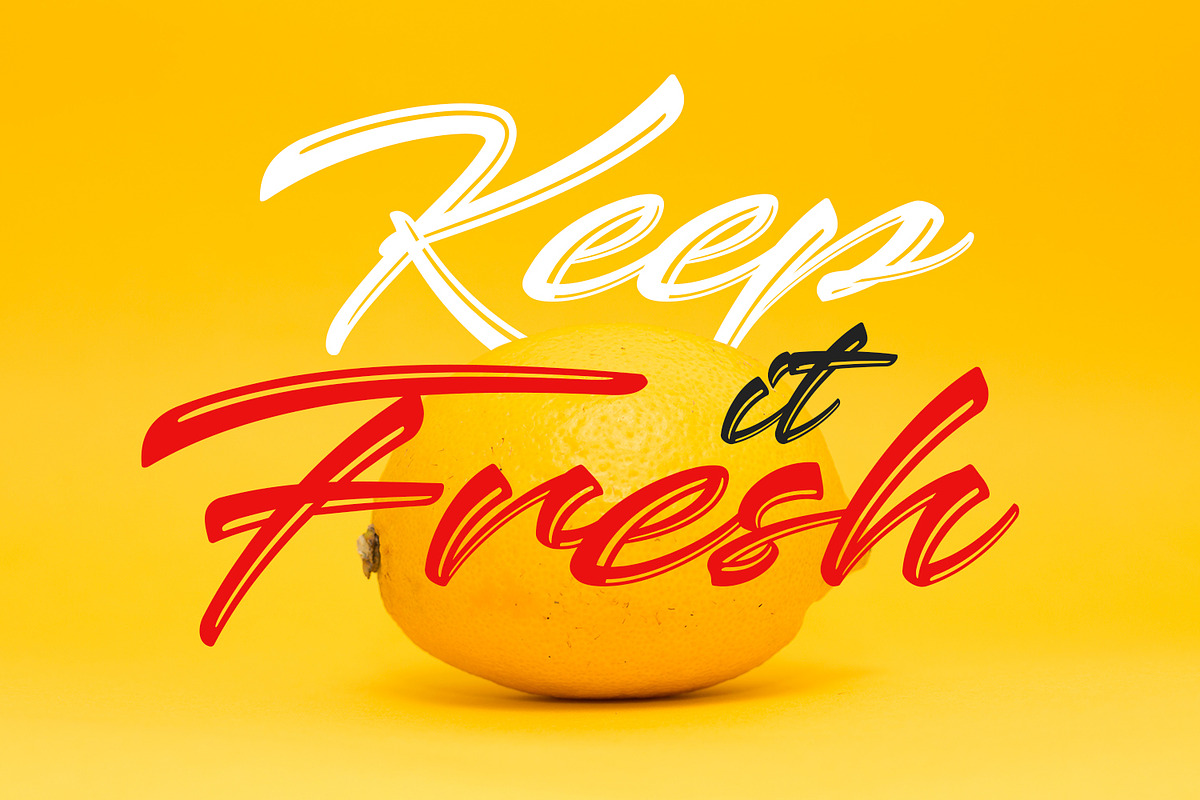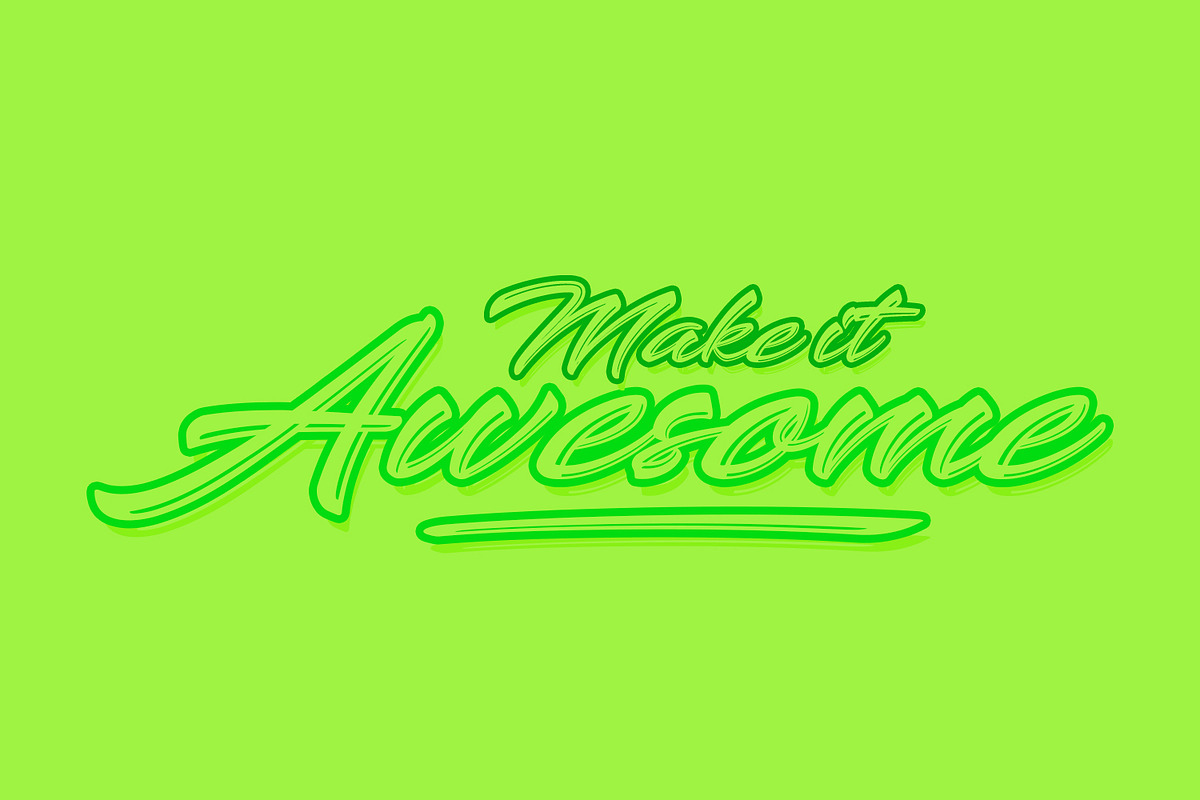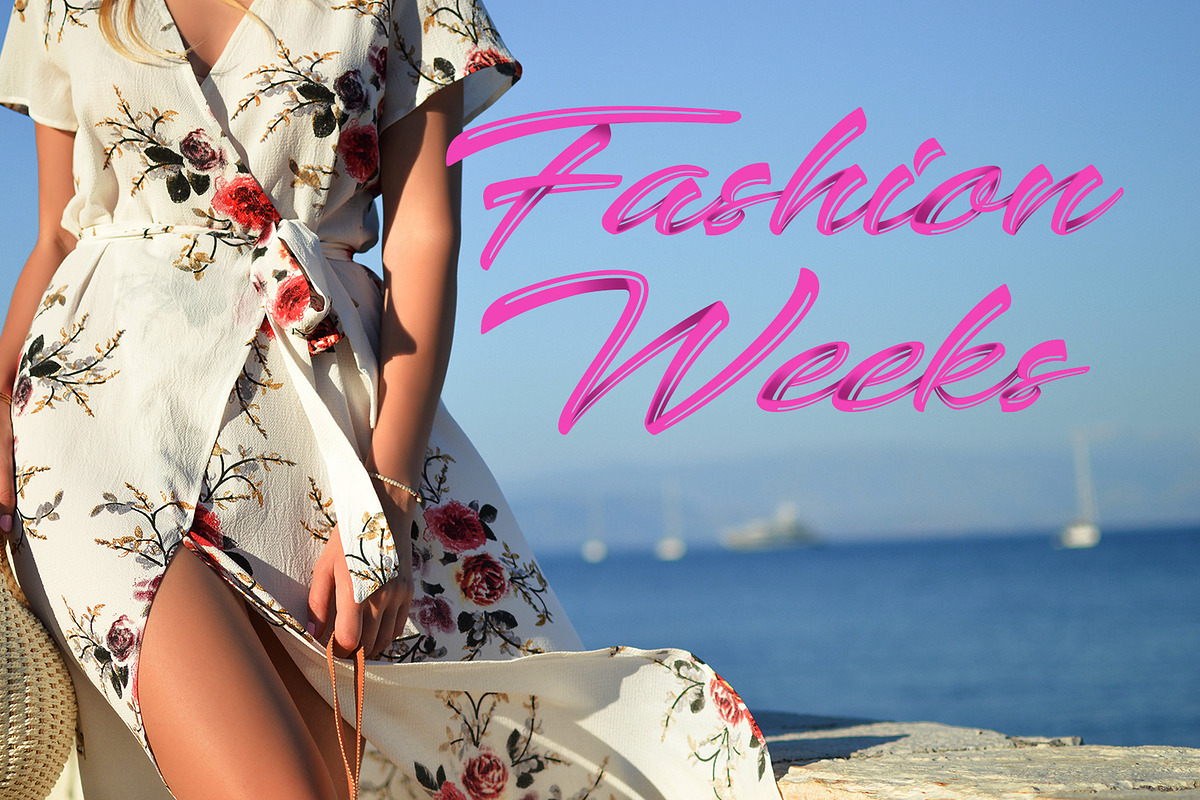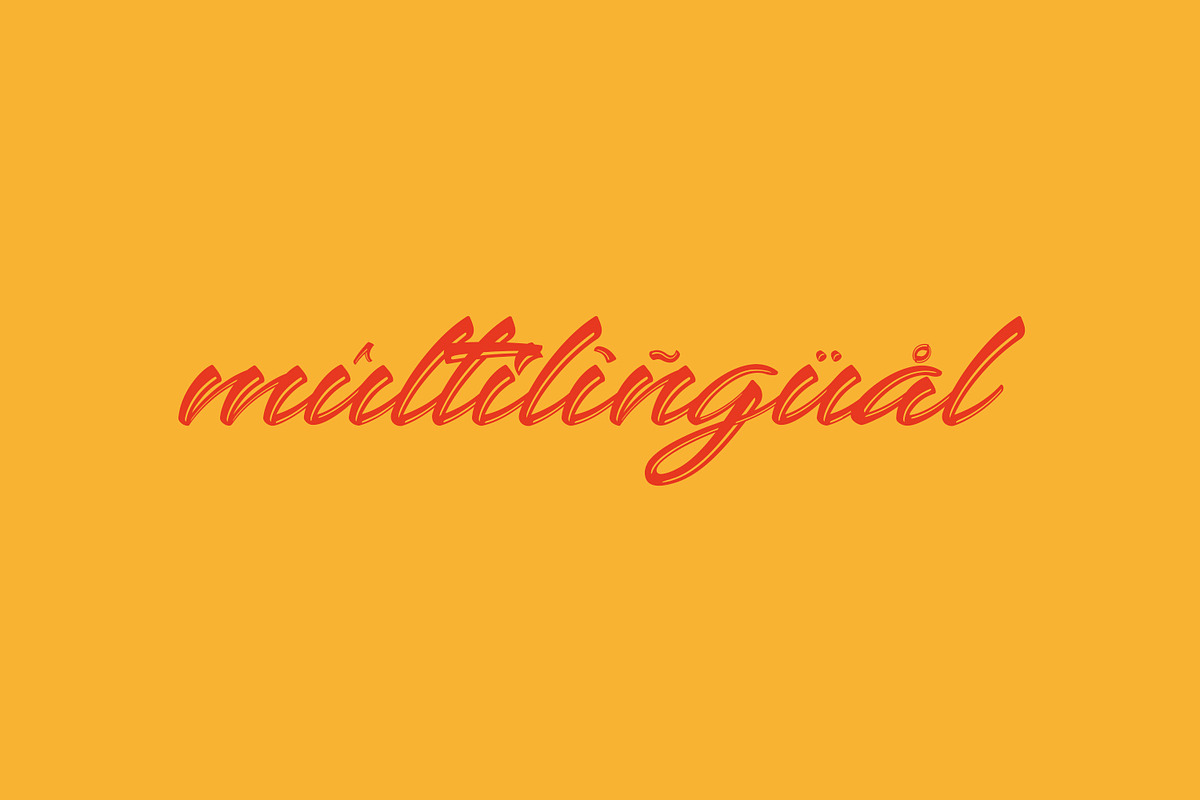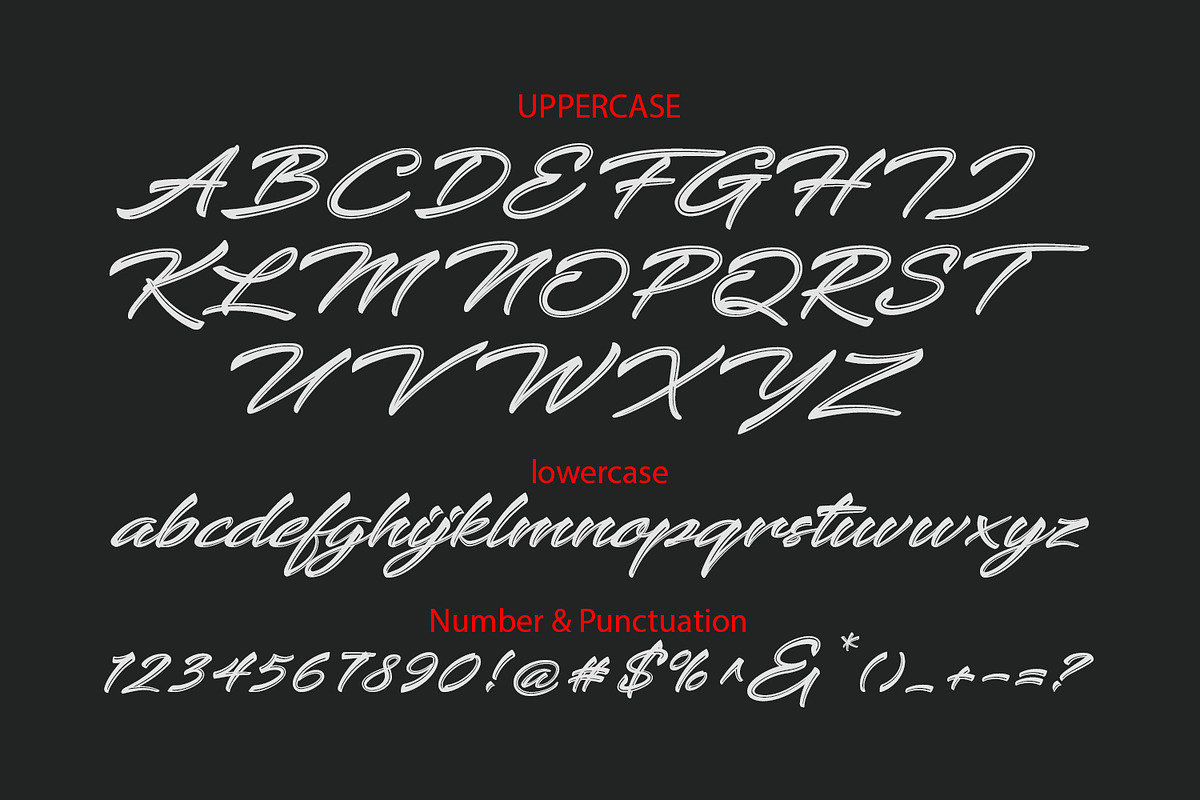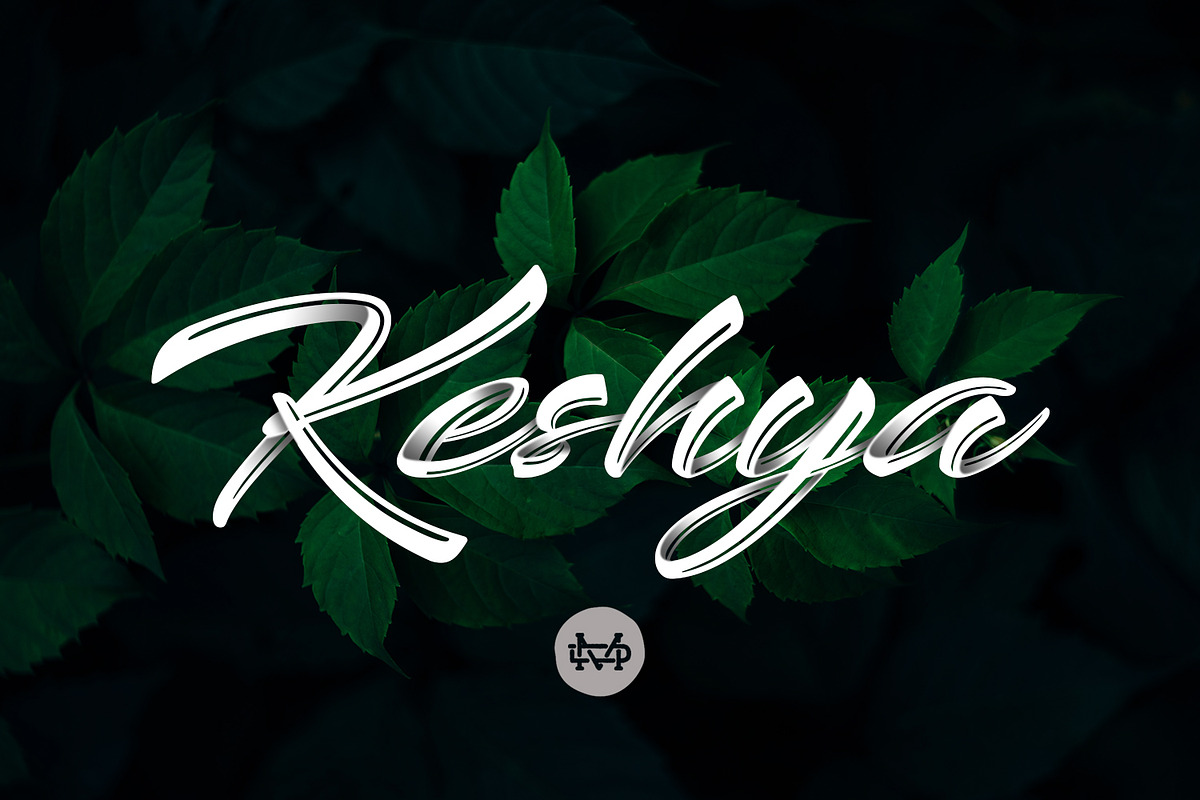
Keshya - Beautiful Script
Keshya is a modern script with line textured and this perfect for all your designs project, event and more.
- International Glyphs